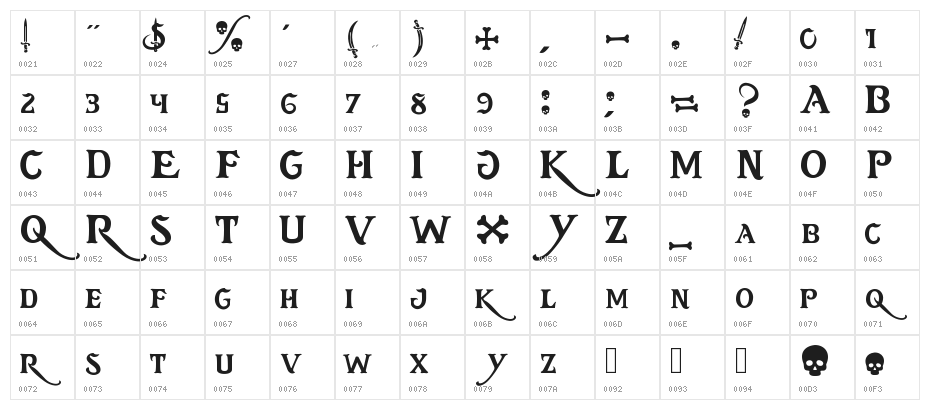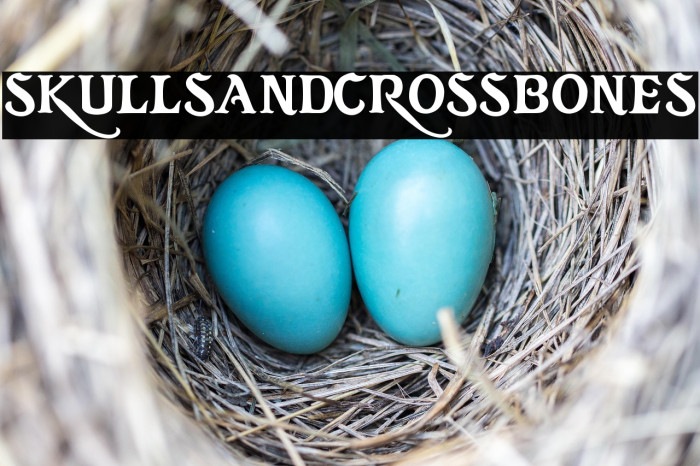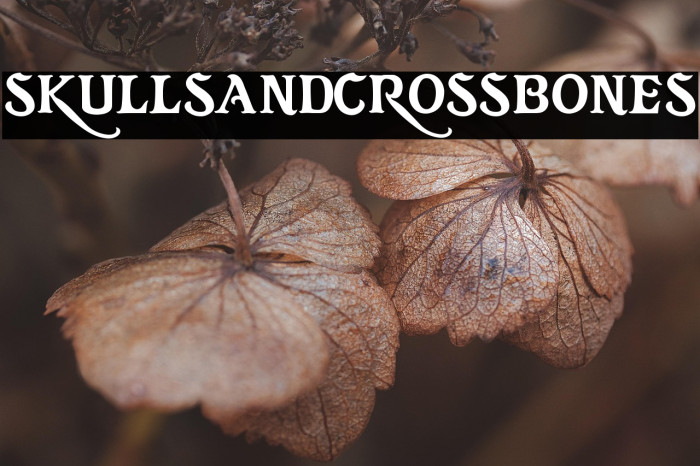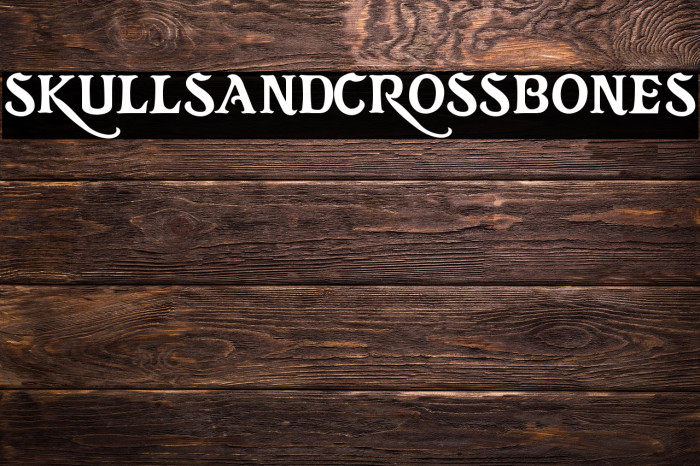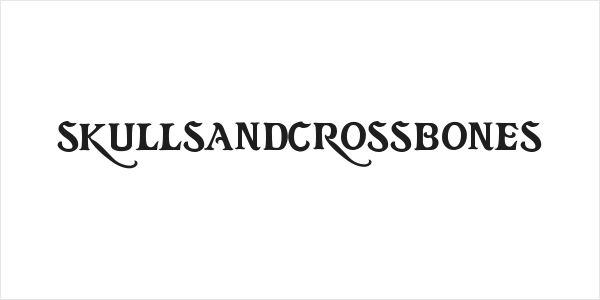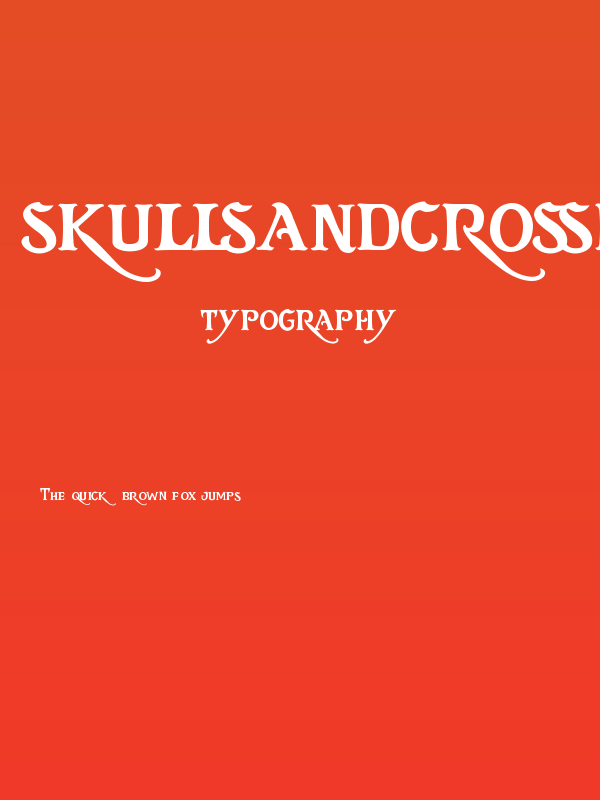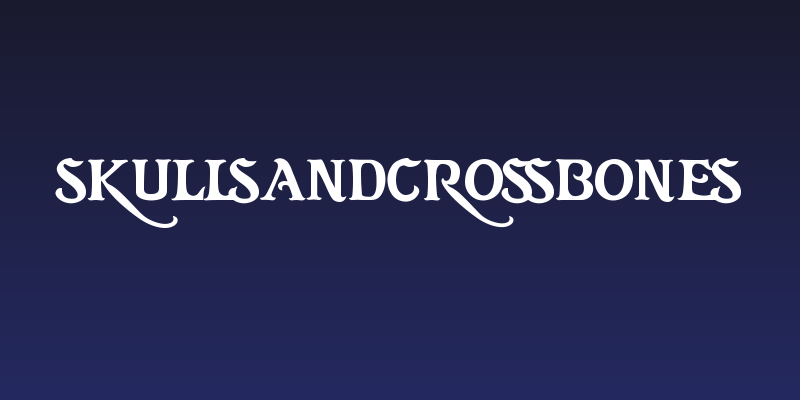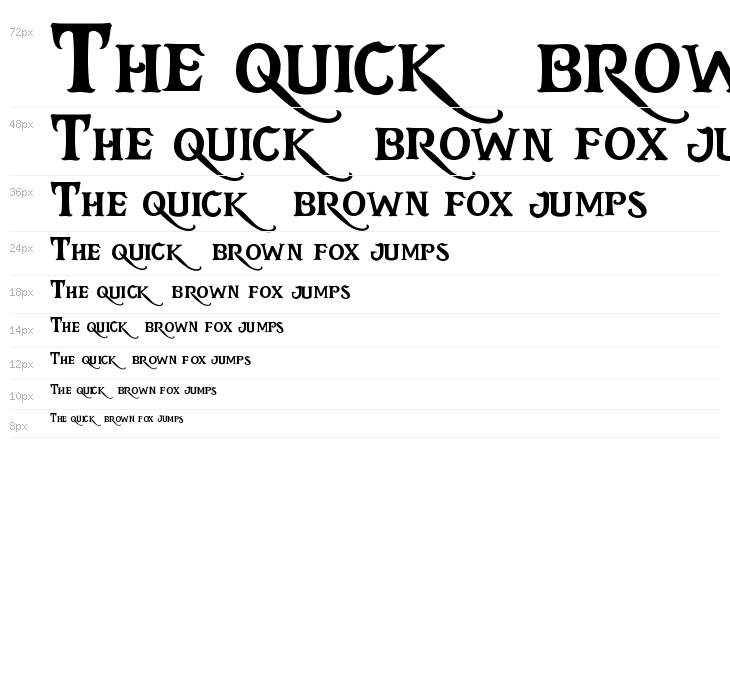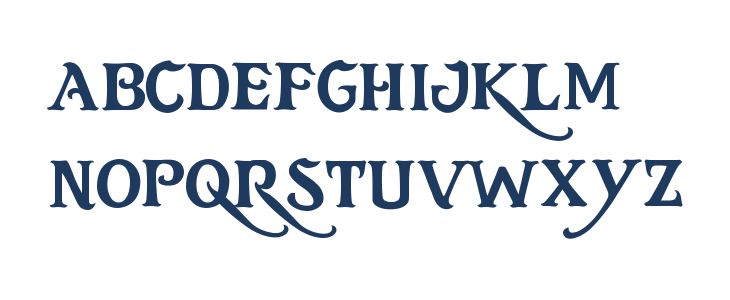
skullsandcrossbones Font
skullsandcrossbones Description
This font exudes a bold and adventurous spirit, characterized by its dramatic and ornate design. The letters are embellished with intricate flourishes and sharp edges, reminiscent of pirate-themed motifs. The uppercase letters are particularly striking, with exaggerated curves and pointed serifs that give a sense of movement and flair. The numbers and special characters maintain this thematic consistency, featuring elements like skulls and crossbones that enhance the font's rebellious and daring aesthetic. Overall, this font captures a sense of mystery and excitement, making it ideal for projects that require a touch of the dramatic and the unconventional.
| Use Case | Headlines, Logos, Themed Events |
| Proposed Projects | Ideal for themed events, adventure novels, pirate-themed branding, or Halloween decorations. |